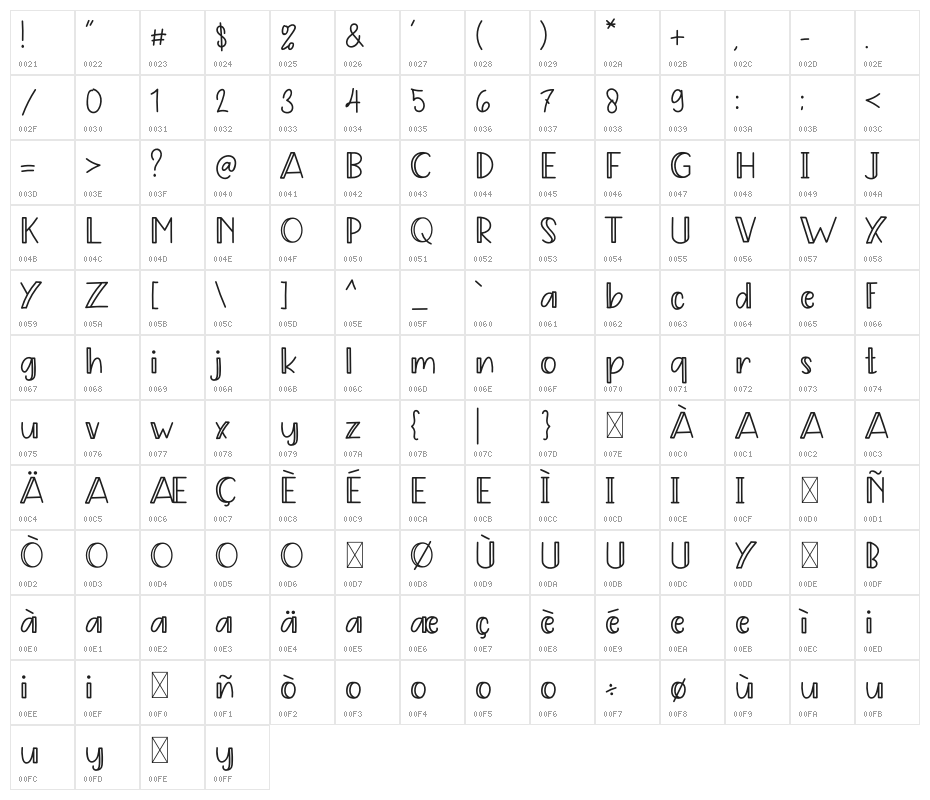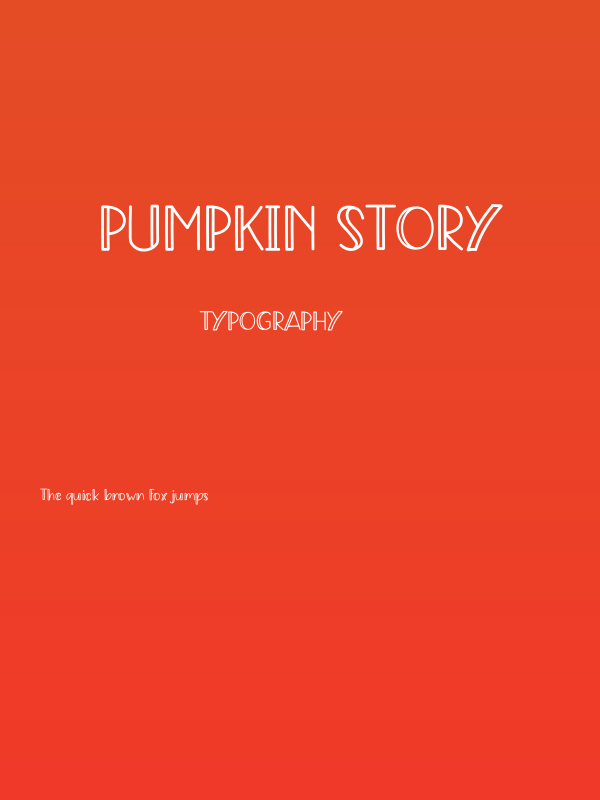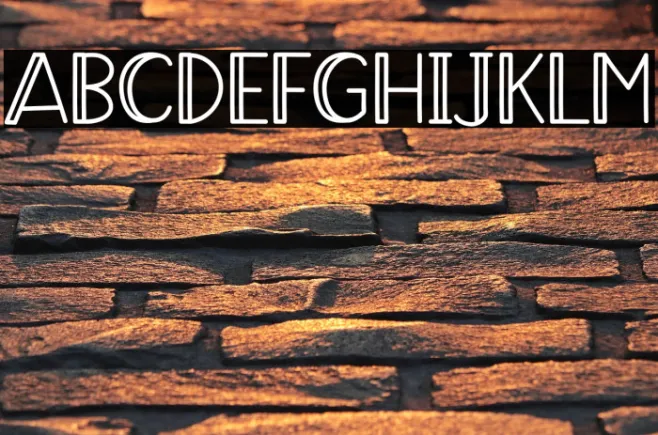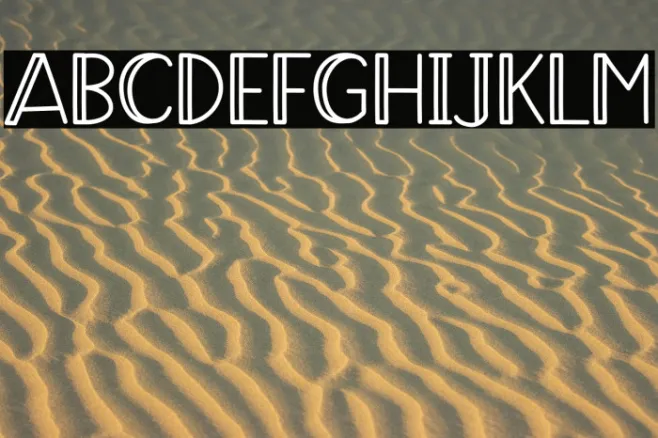
Pumpkin Story Font
Pumpkin Story Description
This font features a playful and whimsical design, characterized by its hand-drawn appearance. The uppercase letters are bold and slightly condensed, with a consistent stroke width that gives them a sturdy yet approachable look. The lowercase letters maintain a similar style, with rounded edges and a casual feel, enhancing the font's friendly and informal nature. The numerals are clear and legible, matching the overall aesthetic with their rounded forms. Special characters are creatively styled, adding to the font's unique personality. This font is perfect for projects that require a touch of fun and creativity, such as children's books, greeting cards, or playful branding.